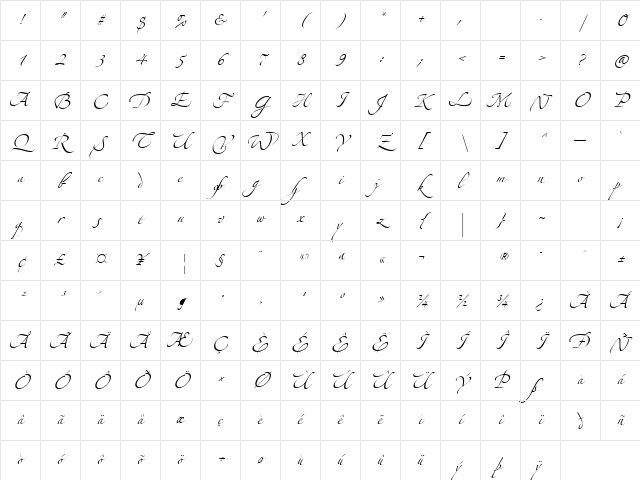
Zeferino Three Regular
Foundry: Alexandra Gophmann (rusification Zapfino ExtraTwo)
Designer: Alexandra Gophmann
Design Context for Zeferino Three
Zeferino Three is a composed and adaptable typeface that performs quietly and consistently across a wide range of design contexts.